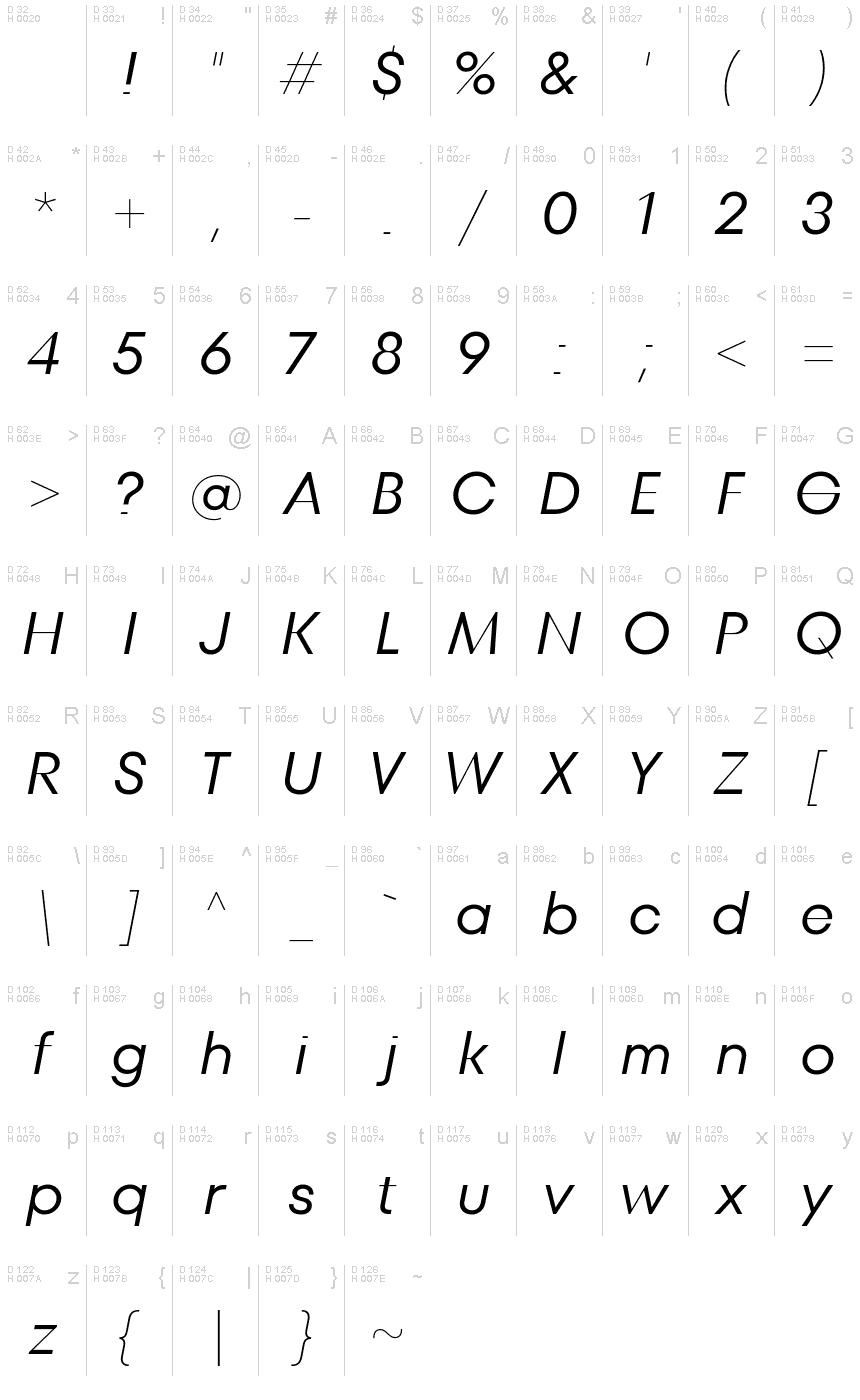
TT Fors Display Trl Italic
TT Fors Display Italic is a modern, sans serif font that exudes sophistication and elegance. Designed by TypeType Foundry, this semi-light typeface boasts an italicized tilt that adds a touch of personality to any project. The clean lines and sleek curves make it perfect for use in branding materials, such as logos or packaging designs. Its legibility also makes it ideal for editorial pieces like magazines or websites. TT Fors Display Italic is versatile enough to be used in various industries such as fashion, beauty, or tech. Let this font elevate your designs to new heights with its polished and refined look.